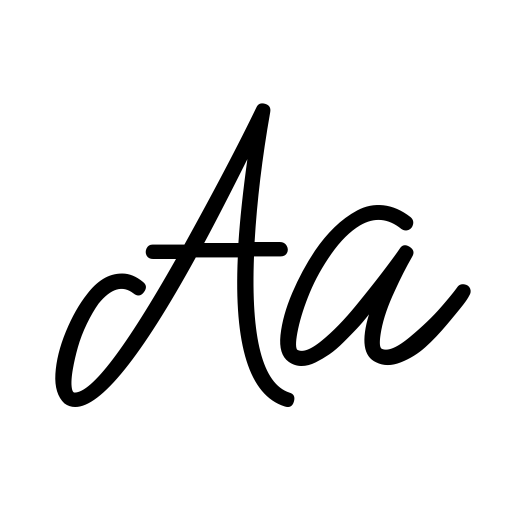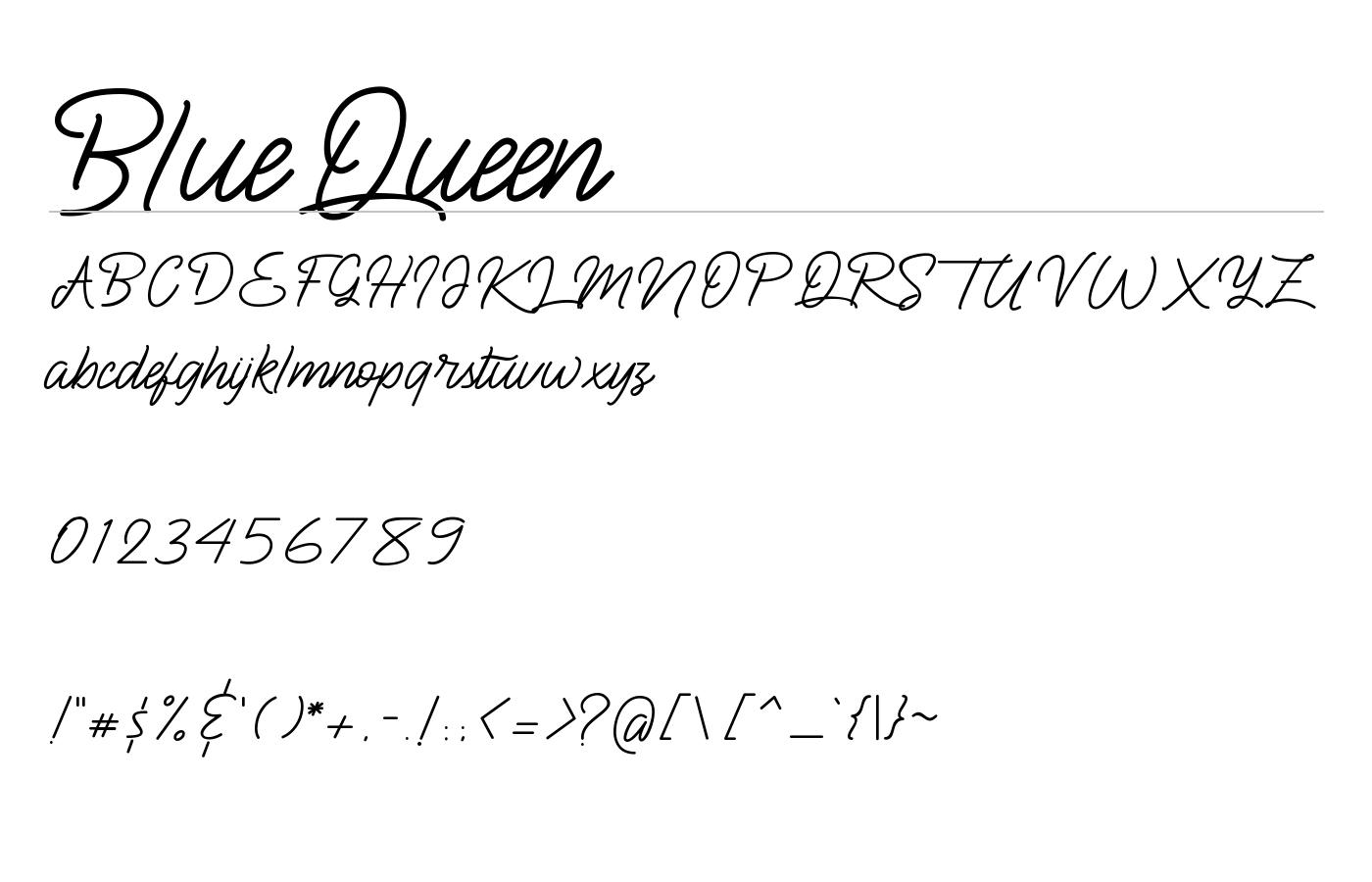
BlueQueen is a stylish script font with a modern, elegant feel, featuring smooth, flowing lines and a balanced weight that keeps it readable yet refined. Its distinctive uppercase letters and graceful lowercase forms make it perfect for branding, invitations, or any design needing a touch of sophistication and personality. This font works especially well in logos, packaging, and headline use where a chic, handcrafted look is desired.
BlueQueen Font
About BlueQueen Font